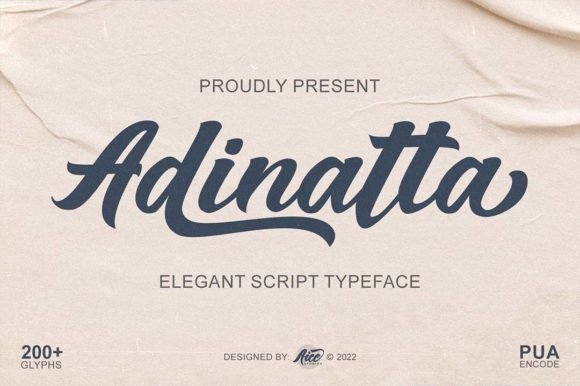
The Adinatta Font: A Modern Script for Creative Minds
Adinatta is an elegant handwritten font with a modern style, making it a versatile script font perfect for a wide variety of purposes such as branding, posters, events, logotype, product packaging, decoration, t-shirts, and more. In this article, we’ll dive into the world of Adinatta Font, exploring its features, uses, and some helpful tips on how to make the most of it.
- ✨ Elegant and modern handwritten style
- 💫 Versatile and suitable for various design projects
- 🎉 Beautifully crafted to add a touch of sophistication to any design
While Adinatta Font is an excellent choice, there are a few minor things to keep in mind:
- ⚠️ Some users might find the font a bit too slender for certain design applications
- 🤔 Limited availability of language support (but it’s still a great option for English-based projects)
- Experiment with OpenType features, such as swashes and stylistic alternates, to add some flair to your design
Although the origins of Adinatta Font are unclear, it’s easy to imagine that the designer was inspired by the world of luxury and elegance. Perhaps they drew inspiration from high-end fashion brands, upscale restaurants, or sophisticated events. Whatever the inspiration, Adinatta Font is a stunning example of modern typography.
A: PUA (Private Use Area) encoding allows font users to access a wide range of glyphs and swashes, making it easier to create unique and creative designs.
Q: Is Adinatta Font suitable for body text or long-form content?
A: While Adinatta Font is beautiful, it’s primarily designed for display purposes. For body text or long-form content, you may want to consider a more readable font.